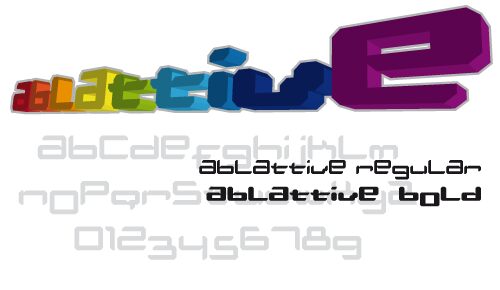
Ablattive Shadow by TracerTong is a free outlined techno display font with broad, angular lettering and a hard offset shadow. Squared curves, clipped corners, and deep horizontal cuts give the forms a machine-tooled profile. The low shadow makes every letter look solid and raised.
Arcade technology and futuristic machinery make a natural setting for its industrial shapes. It suits game graphics, electronic music posters, and science-fiction merchandise, where the outlined faces can become part of a console panel, vehicle badge, or product identity.